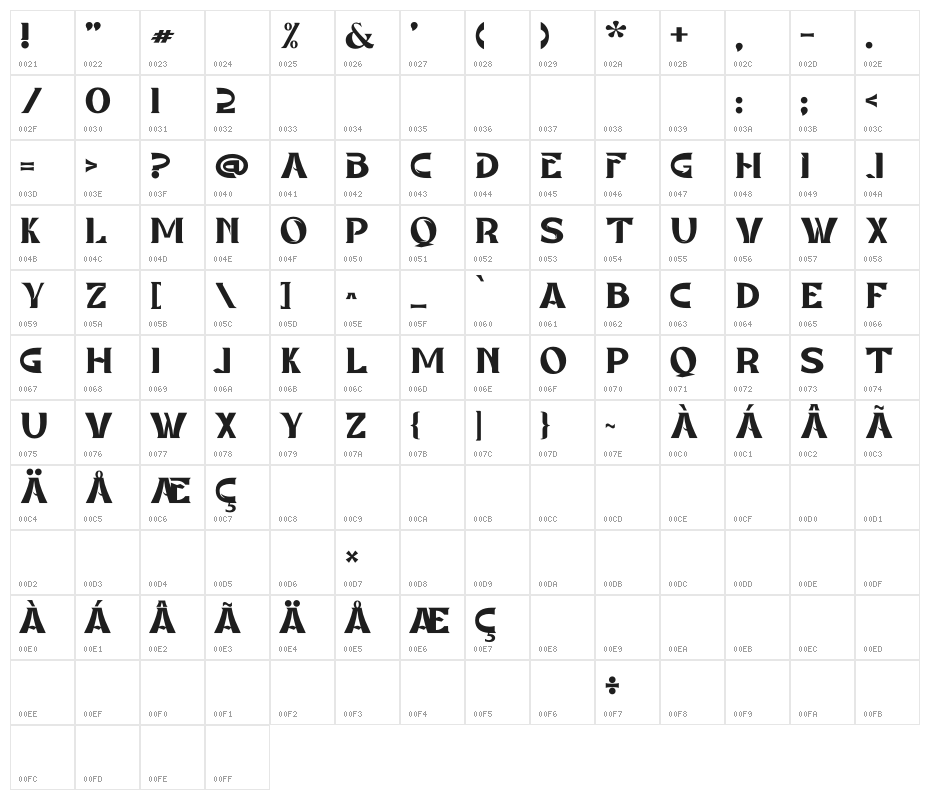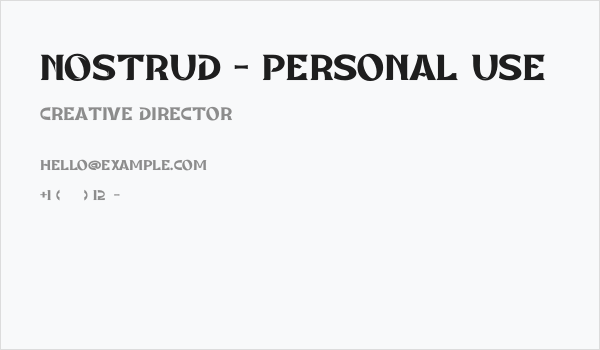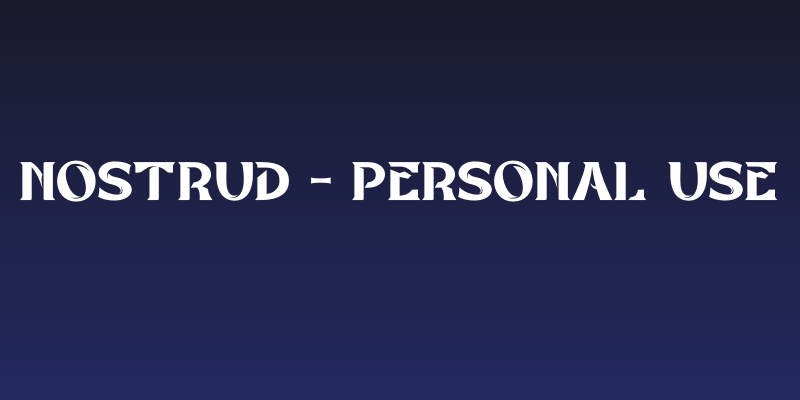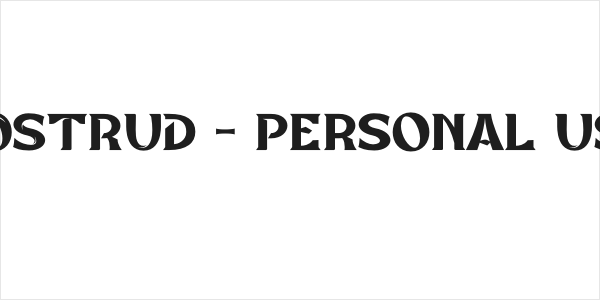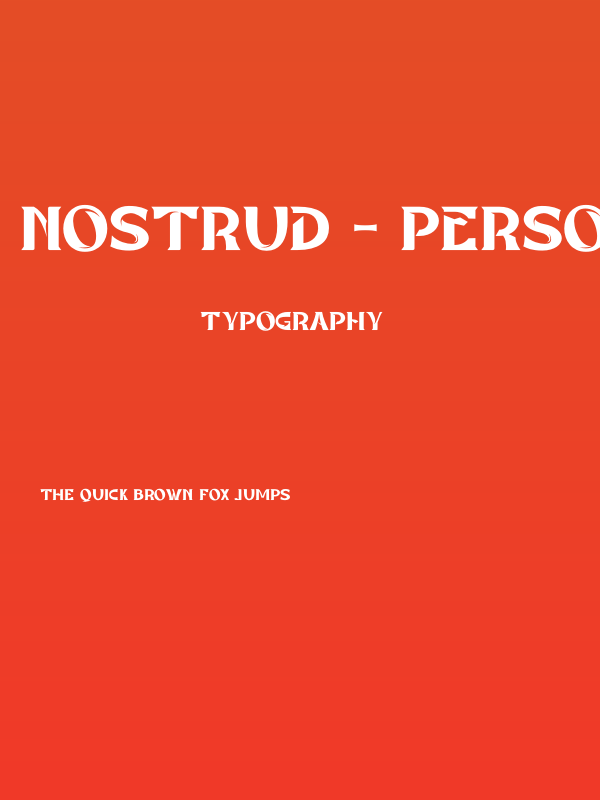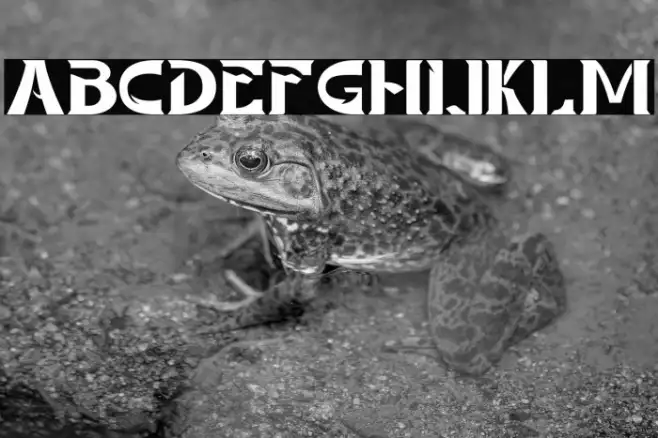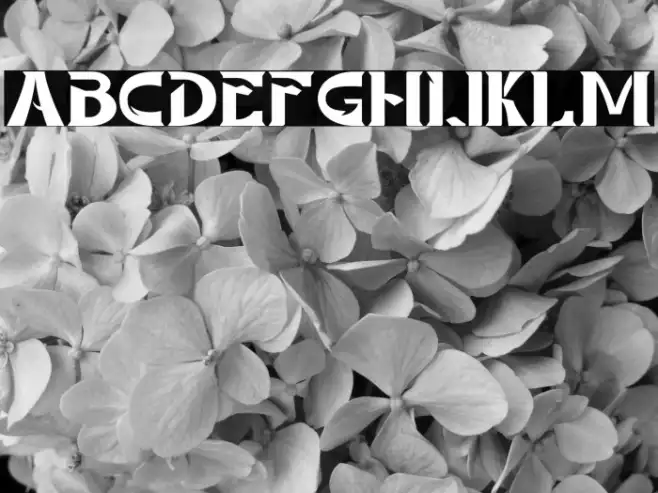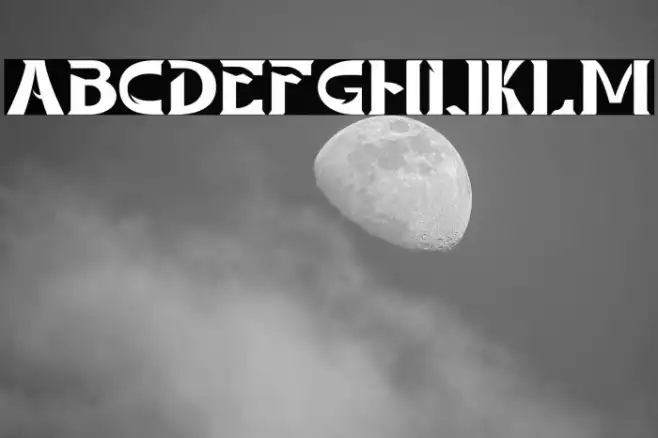
NOSTRUD - Personal Use Font
NOSTRUD - Personal Use Description
This font features a bold and striking design with sharp, angular edges and a distinct geometric style. The uppercase letters are particularly eye-catching, with a unique cut-out effect that adds a sense of movement and dynamism. The numbers and special characters maintain this bold aesthetic, ensuring consistency across all glyphs. The font's overall appearance is modern and slightly futuristic, making it ideal for projects that require a strong visual impact.
| Proposed Projects | Ideal for branding, posters, headlines, and any design requiring a bold statement. |